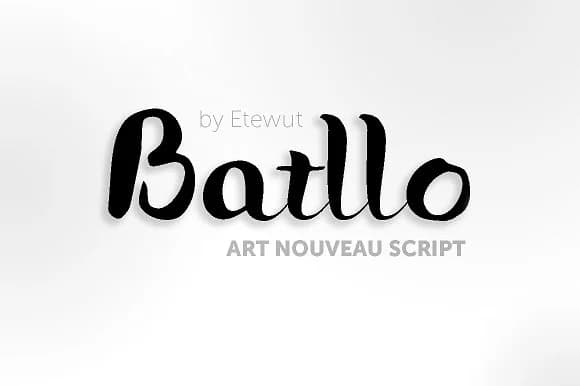
About Batllo Font
Batllo Font by Etewut is a flowing handwritten script that merges contemporary design with organic, naturally-expressive character and distinctive flair. The typeface captures the genuine warmth of authentic pen-and-paper writing while maintaining solid readability across various design applications and sizes. Its expressive strokes add authentic personality and that distinctive human touch to projects that demand a personal, approachable aesthetic rather than rigid geometric typefaces. The font's versatile nature makes it equally suitable for both professional designers working on commercial projects and creative hobbyists seeking authentic handwritten style without compromising legibility or professional appearance.
Wedding invitation suites gain memorable sophistication and charm through Batllo's flowing letterforms, while custom greeting card designs benefit from its approachable elegance. Boutique product packaging stands out distinctly on retail shelves with this font's personalized character, and creative professionals use it for hand-lettered logo work and comprehensive brand identity development. Event signage, personalized gift labels, DIY craft projects, and social media graphics all showcase Batllo's ability to communicate both sophistication and warmth. The script also performs well for book cover titles, premium stationery design, and any project where authentic handwriting naturally enhances visual communication. Discover Batllo Font on Creative Fabrica to bring handwritten character to your creative work.
Batllo Font is a script font that shines as a display or heading face. Pair it with a clean sans-serif or serif font for body text β the contrast creates a clear hierarchy while the two styles stay balanced and easy to read.
Batllo Font
by Etewut